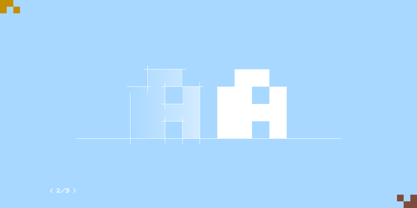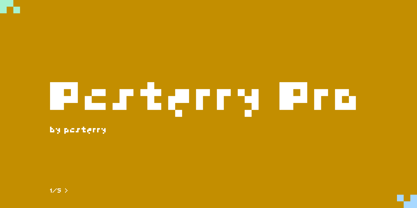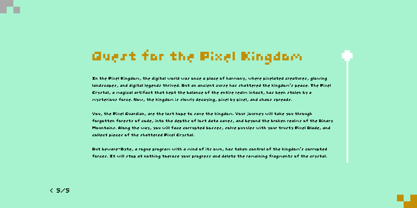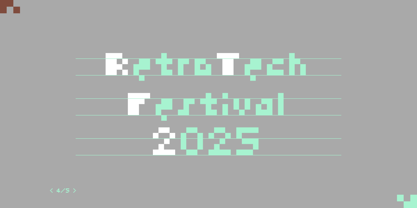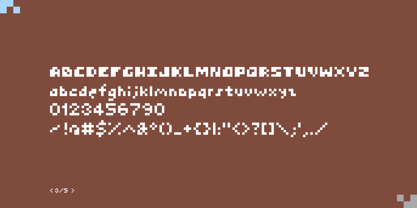
Pcsterry Pro
by Pcsterry
The Pcsterry Pro Font Family was designed by Terry Pang and published by Pcsterry. Pcsterry Pro contains 1 styles. More about this family
Step back in time with a pixel-perfect typeface designed for the nostalgic charm of retro gaming and modern digital displays. Inspired by classic 8-bit and 16-bit fonts, this typeface brings a unique blend of vintage appeal and crisp readability, making it the perfect choice for small screens, mobile devices, and any project where detail and legibility are paramount.
Whether you're designing retro-style games, websites, or digital interfaces, it delivers a clean, dynamic look that stays true to the pixel art aesthetic. With bold structure and pixel precision, it captures the essence of the gaming era while offering a fresh, modern take for today’s tech-savvy designs.
Bring your creative projects to life with the ultimate pixel font for retro enthusiasts and modern designers alike.